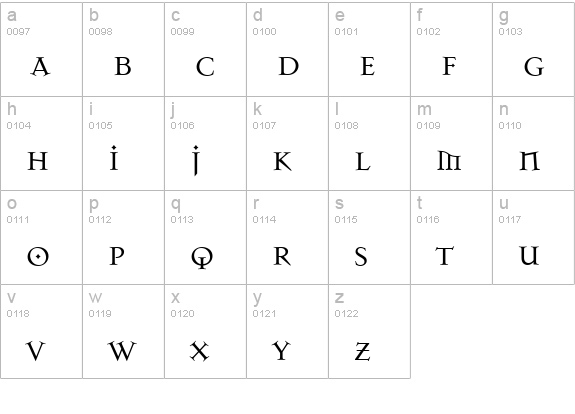
MasonAlternate Font Details
Introducing MasonAlternate font, a stunning addition to your typography collection. This versatile typeface boasts a unique and contemporary style that will effortlessly elevate any design project. With its sleek lines and elegant curves, MasonAlternate is perfect for creating eye-catching logos, captivating headlines, and stylishly modern branding materials. But what sets MasonAlternate font apart from the rest? It's the fact that it is not only beautifully designed but also available for free! Yes, you heard it right - this remarkable font can be freely downloaded at FontsMarket.com. Now you can enjoy the benefits of a premium font without having to spend a dime. Whether you're a professional graphic designer, a creative freelancer, or simply someone who appreciates high-quality typography, MasonAlternate font is a must-have in your arsenal. Its versatility allows it to seamlessly adapt to a wide range of design projects, from websites and advertisements to packaging and stationery. With MasonAlternate font, you have the freedom to explore endless creative possibilities. Let your imagination run wild as you experiment with different letterforms, sizes, and color combinations. The result? Visually stunning and impactful designs that will leave a lasting impression. Don't miss out on this incredible opportunity to enhance your design work with the captivating MasonAlternate font. Download it for free today at FontsMarket.com and unlock a world of creative possibilities. Elevate your designs, captivate your audience, and make a bold statement with this exceptional typeface.